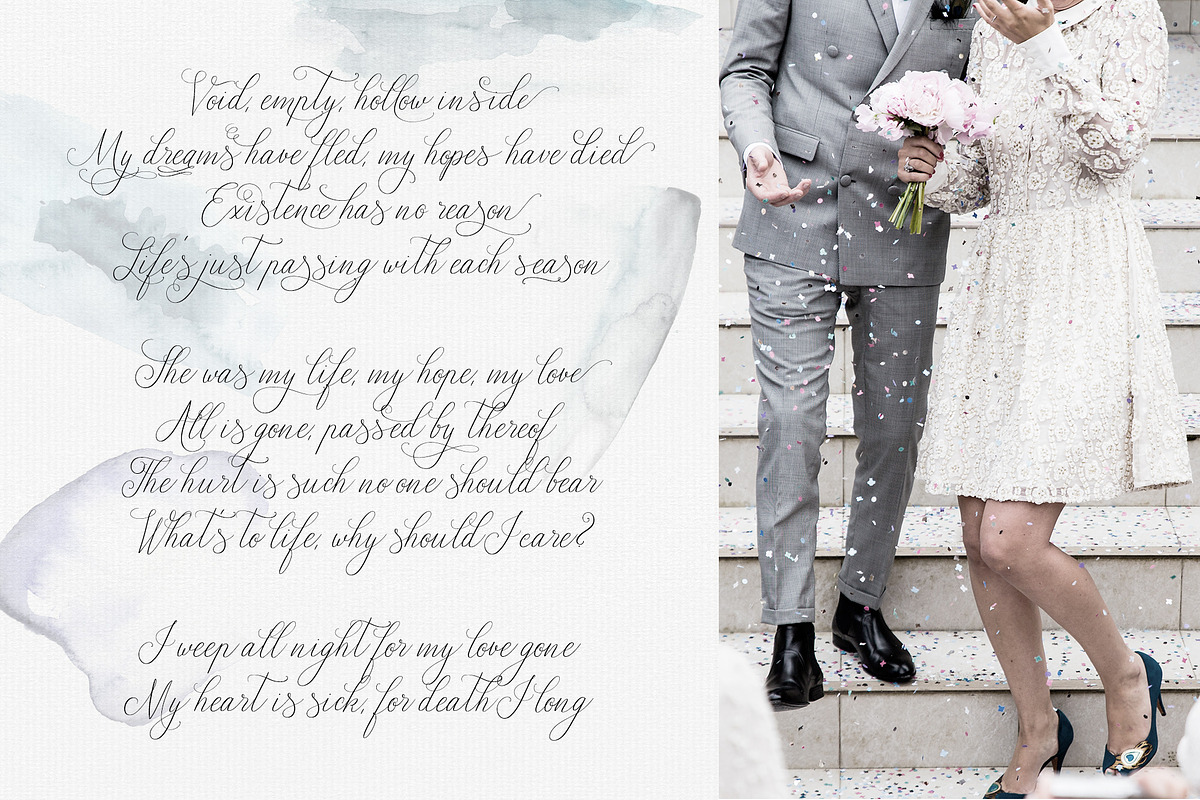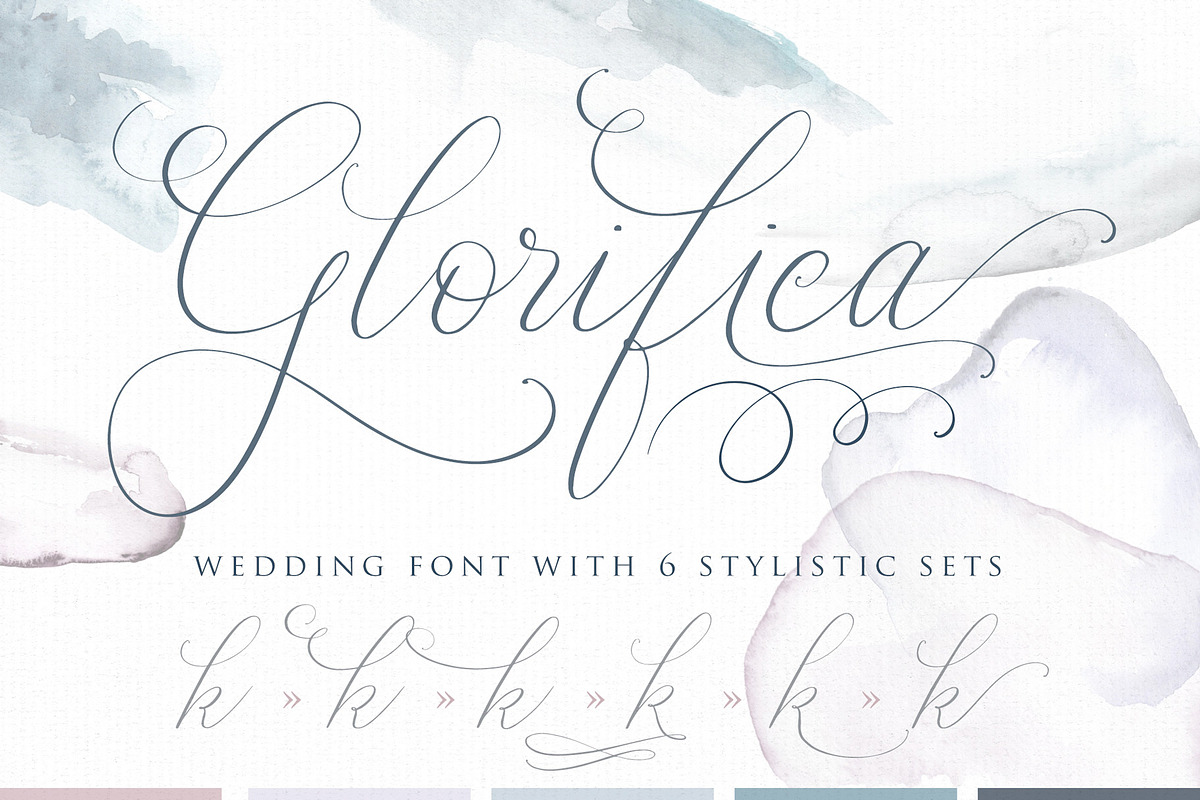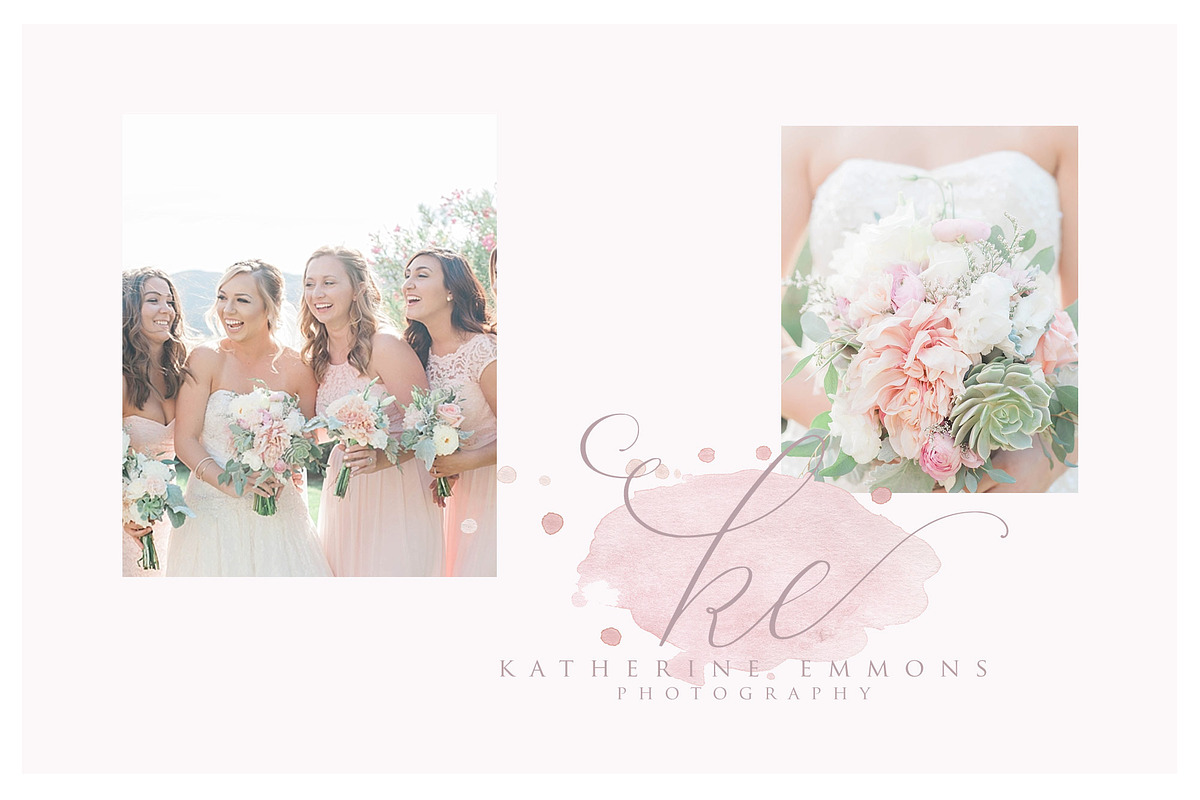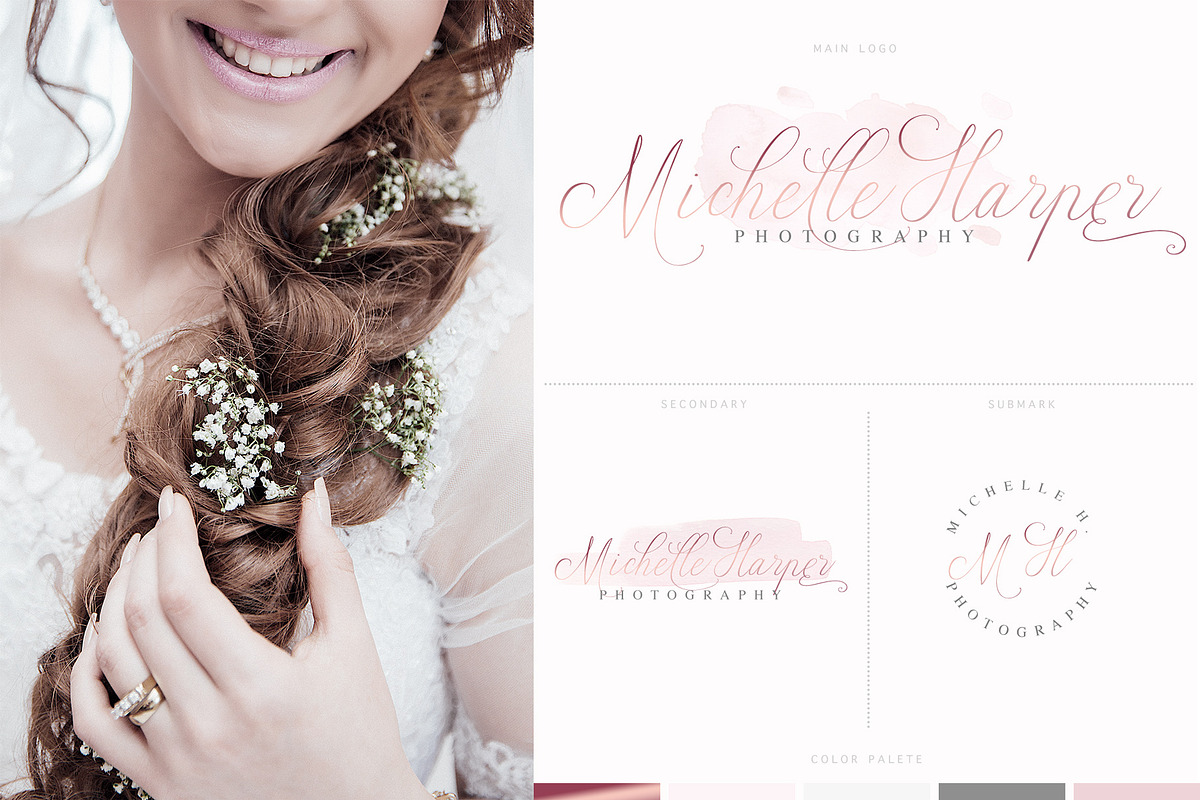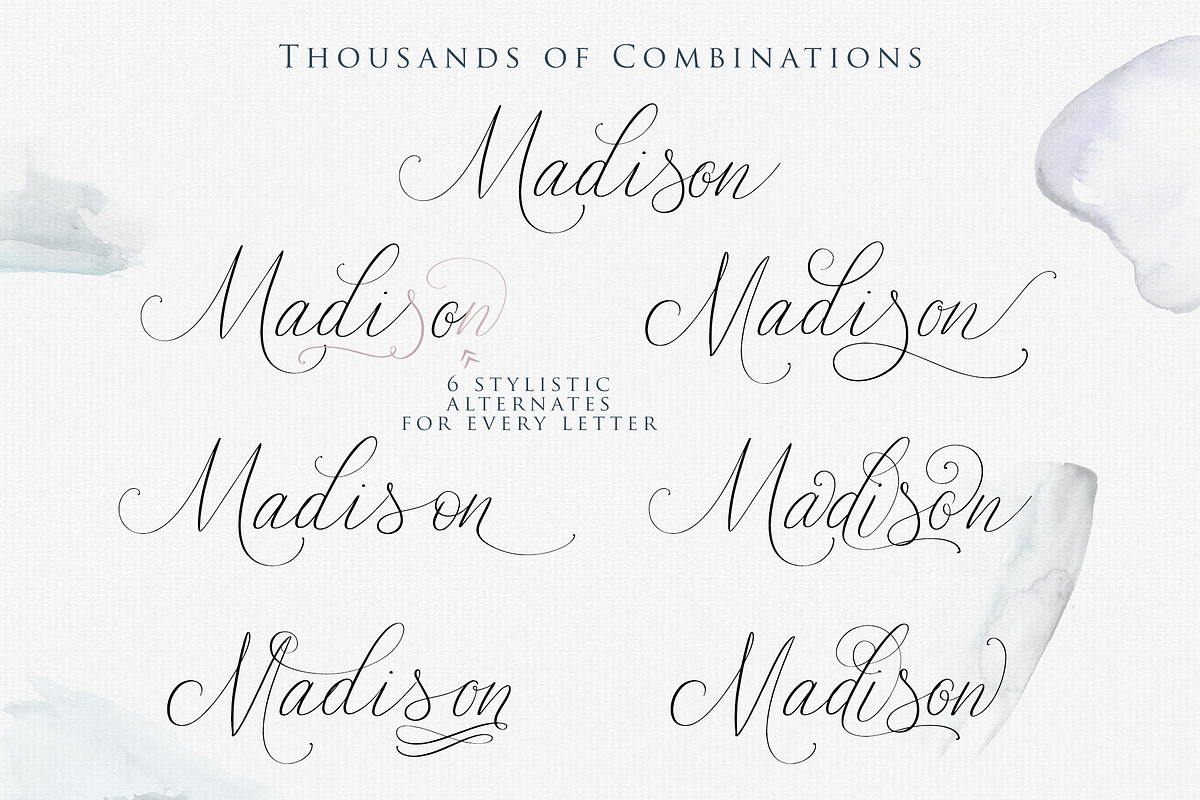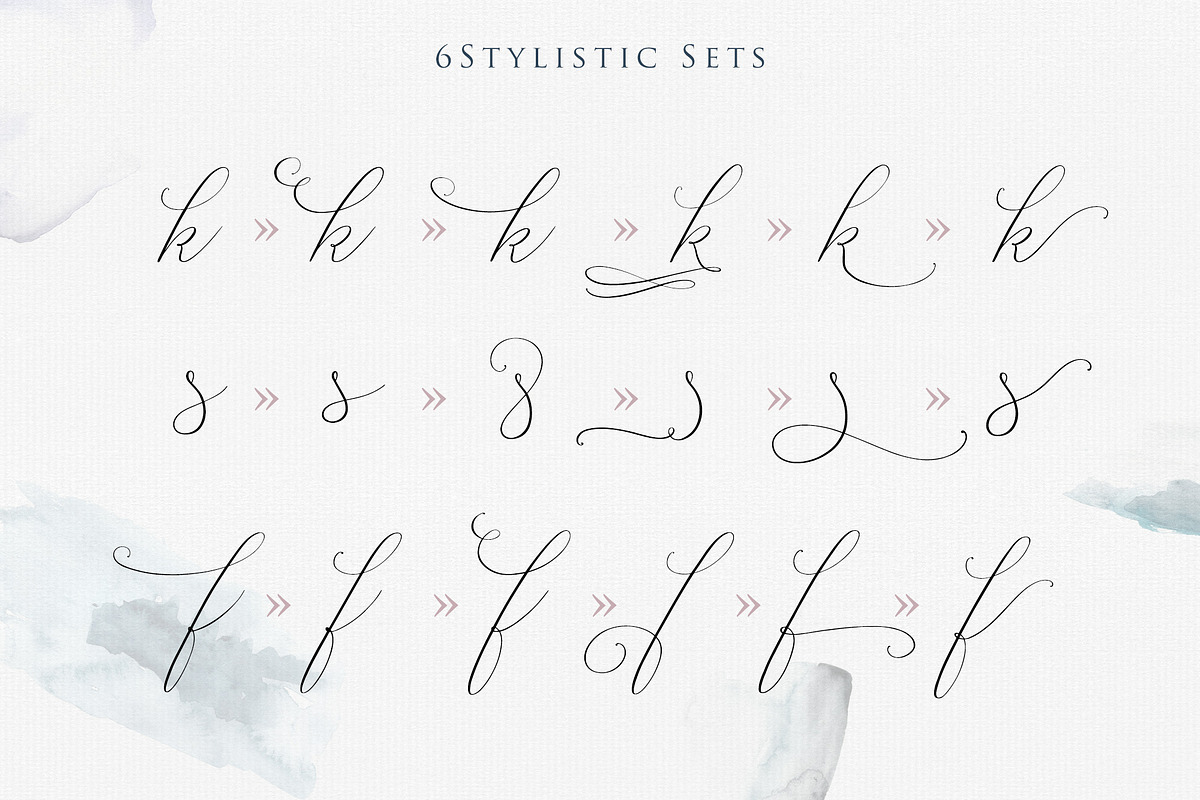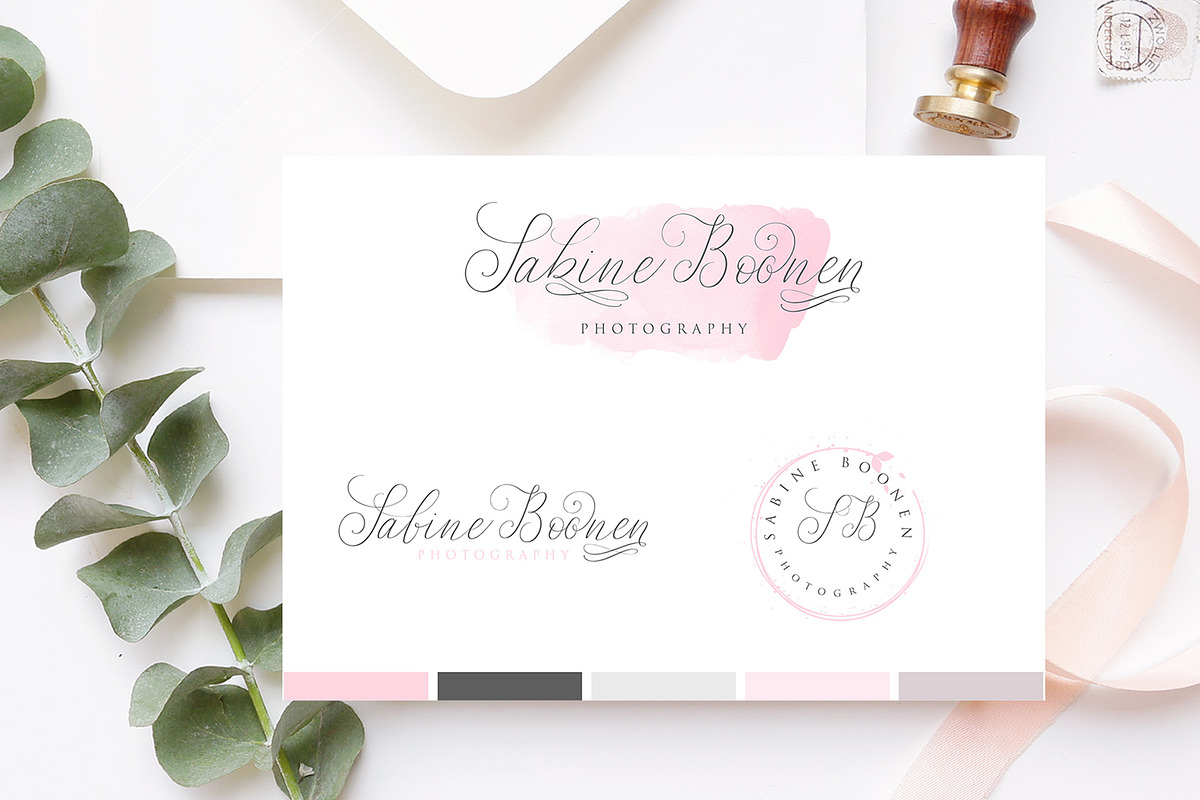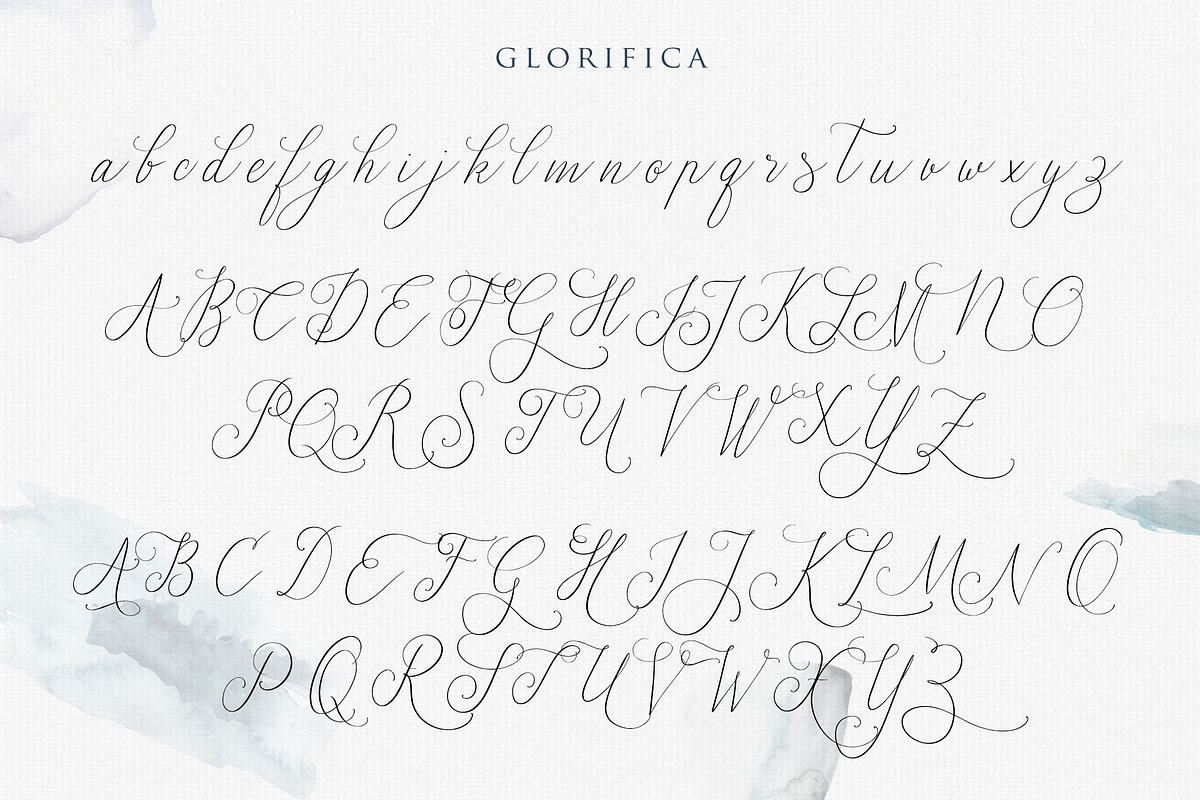
Glorifica Wedding Font
Glorifica is a perfect font for your wedding invitations, stationary and feminine logos. With handwritten, sophisticated flows and whopping 6 stylistic sets of letters with many alternatives and swashes to choose from this is the closest you can get to "real" handmade calligraphy.
What makes this font so special? With 6 stylistic sets of small letters (+ 2 full sets of capitals) you can mix and match them to give your words the perfect organic look. On top of that I've added one more font file just with flourishing swashes - combine them with the letters or use them as decoration.
whopping 6 full stylistic sets
handmade calligraphy look